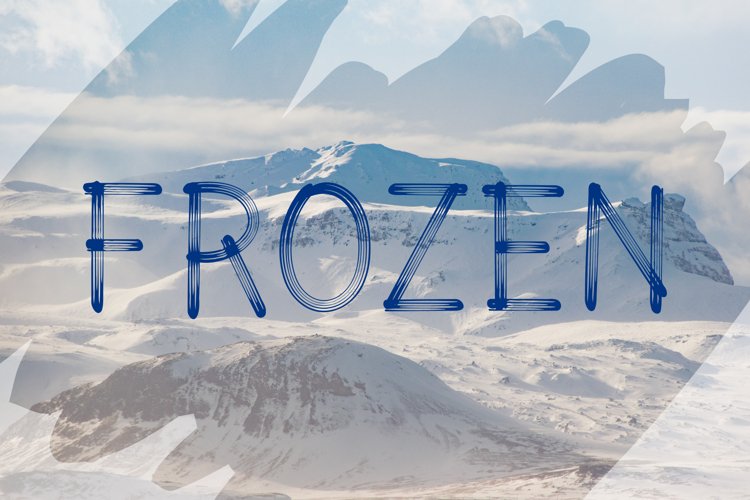
Kindly
KINDLY
Let me introduce my font, this font has been inspired from note on white board,
This style's font is suitable for apparel, gifts, craft, t-shirt, souvenir, product packaging, food brand and your other project.
feature of this font:
Number
Punctuation
Multilingual
Ligature
Kindly